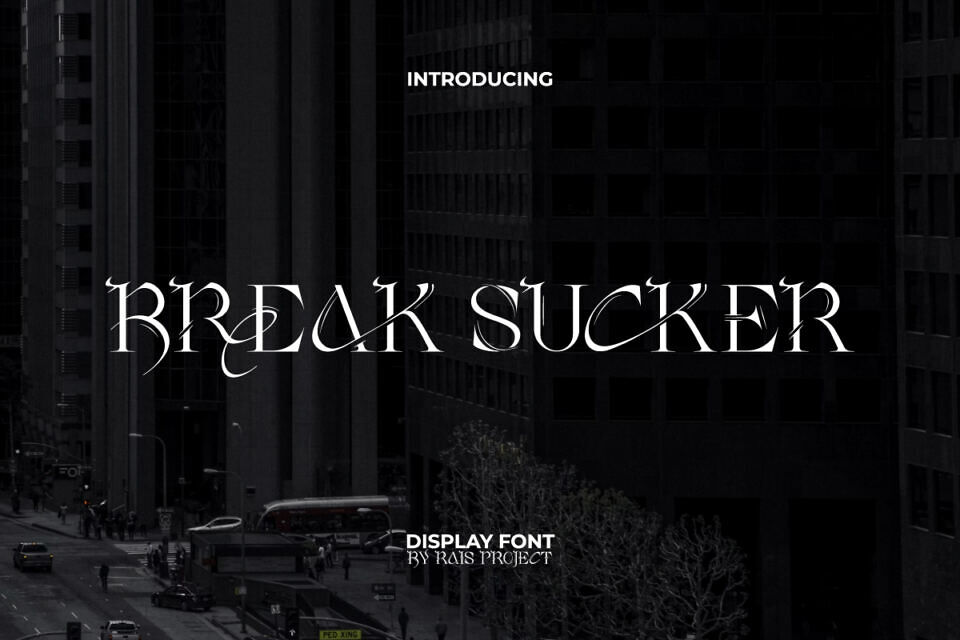
Break Sucker Font
Break Sucker is a bold and sophisticated serif typeface that blends dark elegance with modern edge. Designed to capture attention, it features smooth strokes, strong contrast, and striking detail—perfect for creating luxurious yet mysterious aesthetics.
Ideal for posters, branding, packaging, invitations, apparel, signage, and digital media, Break Sucker brings confidence and creativity to every project. Its refined structure and urban-inspired flair make it perfect for brands seeking power, originality, and timeless style.